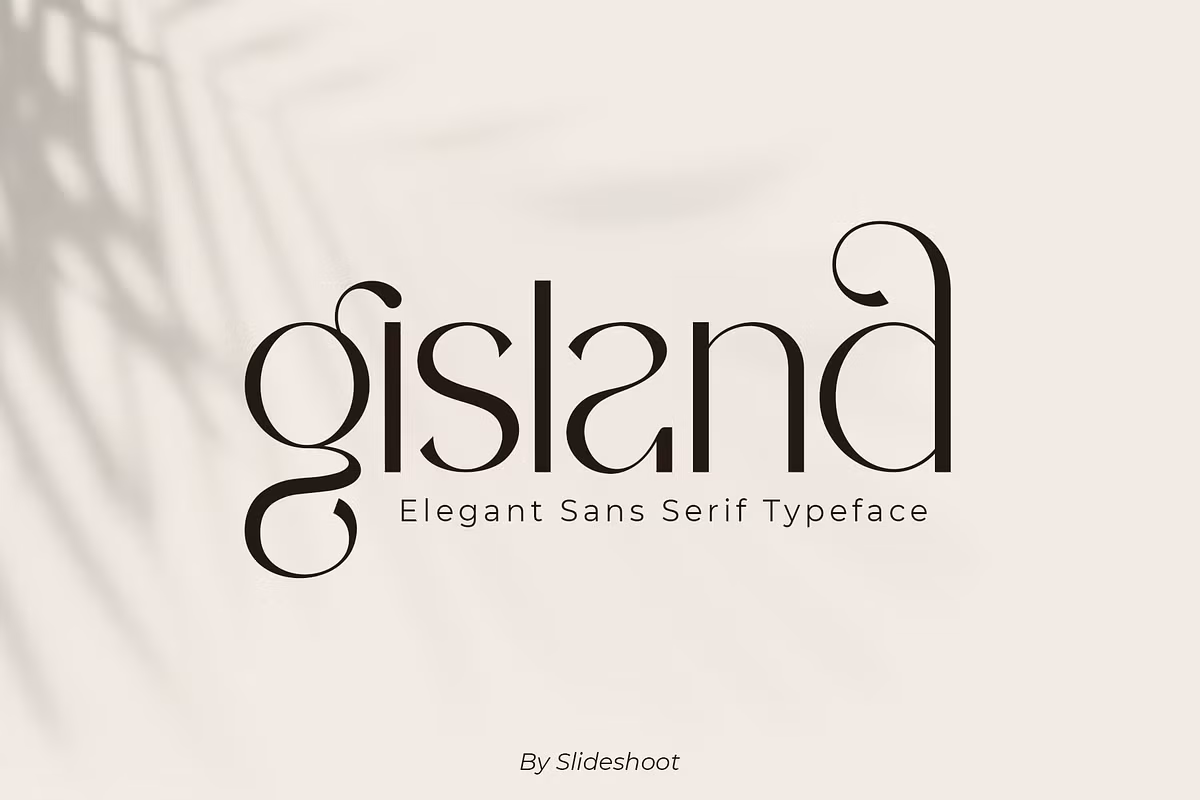
The Gisland - Elegant Sans Serif Font Free Download is a sleek and modern typeface crafted for sophistication and minimalism. With clean lines, balanced proportions, and subtle curves, Gisland is perfect for luxury branding, fashion editorials, upscale packaging, and contemporary web design. Its timeless aesthetic makes it a go-to choice for designers looking to elevate their visual identity with elegance and clarity.
This font shines in both large headers and refined body text, offering versatility without compromising on style. It comes with multiple weights, extensive kerning, and multilingual support—ideal for projects that require both beauty and function.